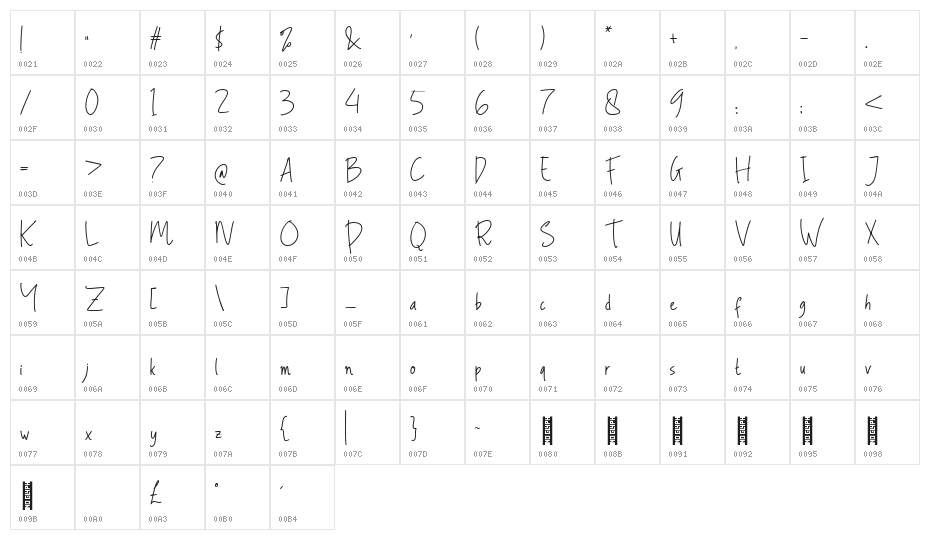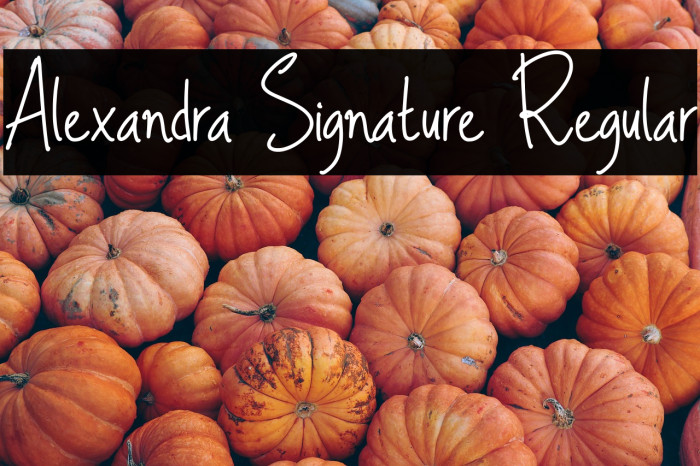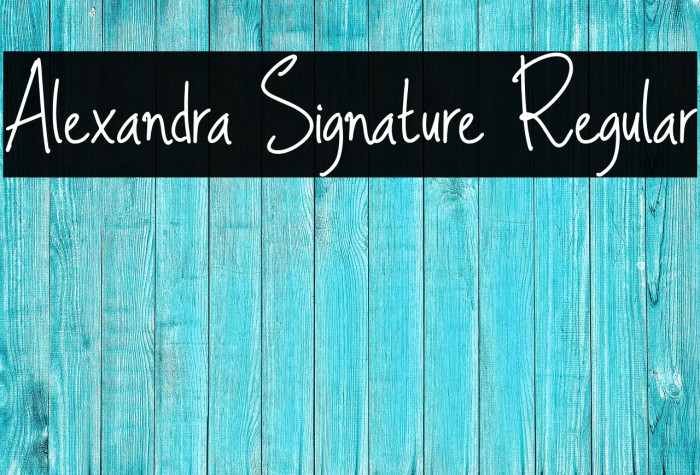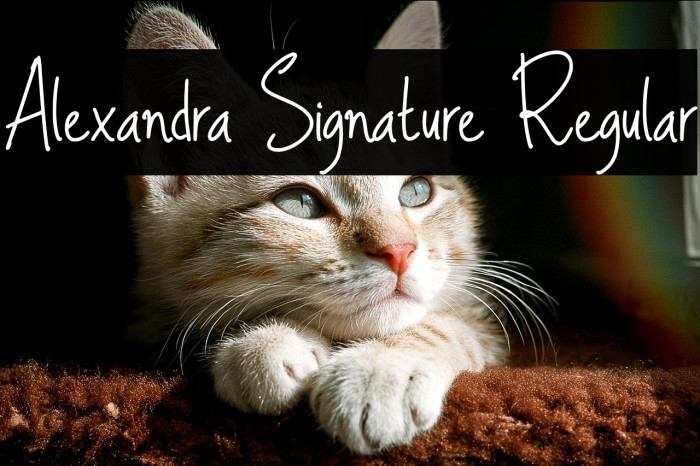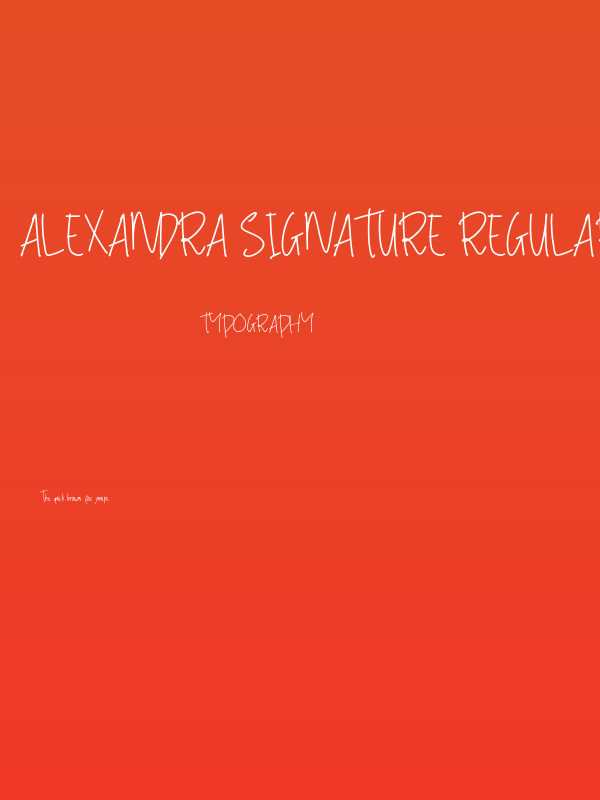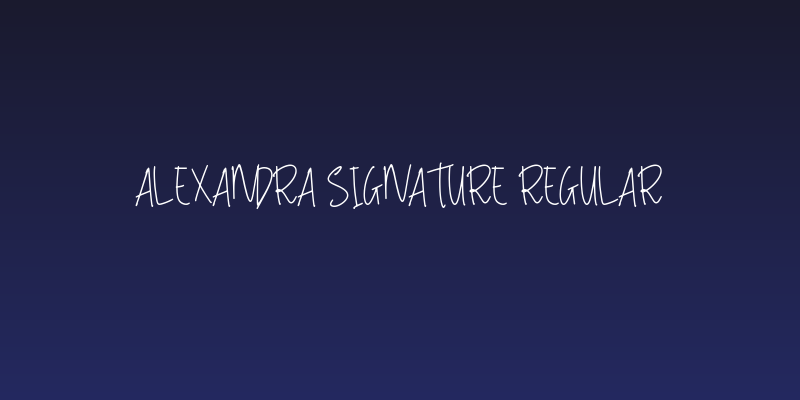
Alexandra Signature Regular Font
Alexandra Signature Regular Description
This font exudes a casual, handwritten style with a touch of elegance, making it ideal for personal and creative projects. The letters are slightly slanted, giving a dynamic and flowing appearance. The strokes are thin and consistent, providing a clean and legible look. The uppercase letters are tall and narrow, while the lowercase letters maintain a balanced proportion, enhancing readability. The numbers and special characters are designed to match the overall aesthetic, ensuring a cohesive look across all text elements.
Overall StyleCasual, Elegant
Use CaseLogos, Invitations, Personal Branding
Proposed ProjectsIdeal for personal branding, invitations, greeting cards, and creative projects that require a personal touch.